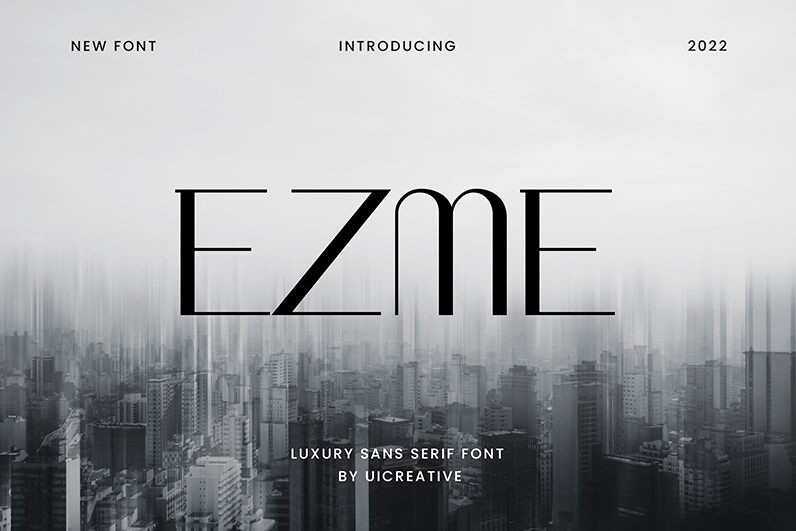
Ezme
Ezme, a captivating sans-serif font crafted by UI Creative, exudes a harmonious blend of modern elegance and subtle sophistication. With its clean lines, refined geometric shapes, and harmonious letter spacing, this font delivers a striking visual experience that commands attention. Ezme's balanced proportions and harmonious letterforms seamlessly communicate a sense of poise and refinement, making it a versatile choice for a wide range of design applications.
This font's versatility shines through its ability to adapt to diverse design contexts, from sleek branding and editorial layouts to impactful headlines and eye-catching display typography. Ezme's refined aesthetic lends itself effortlessly to premium packaging, sophisticated web designs, and modern corporate identities, allowing designers to create cohesive, visually captivating projects that leave a lasting impression.